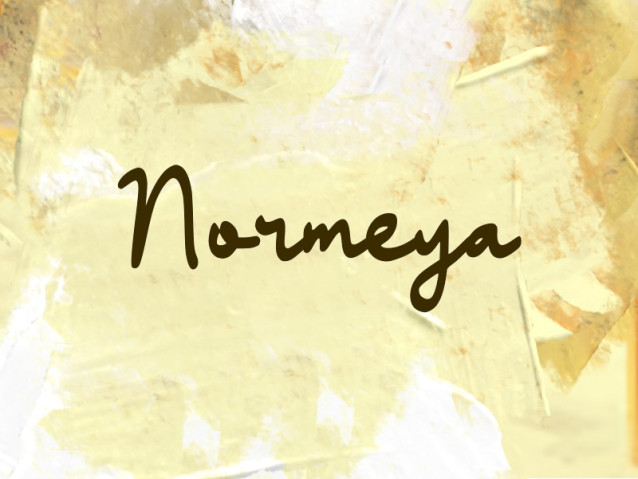
Normeya Font
Normeya Font is a simple and modern display font suitable for quotes, logos, headings, titles, and many more. Use it on any of your creative projects, and your designs will become outstanding!